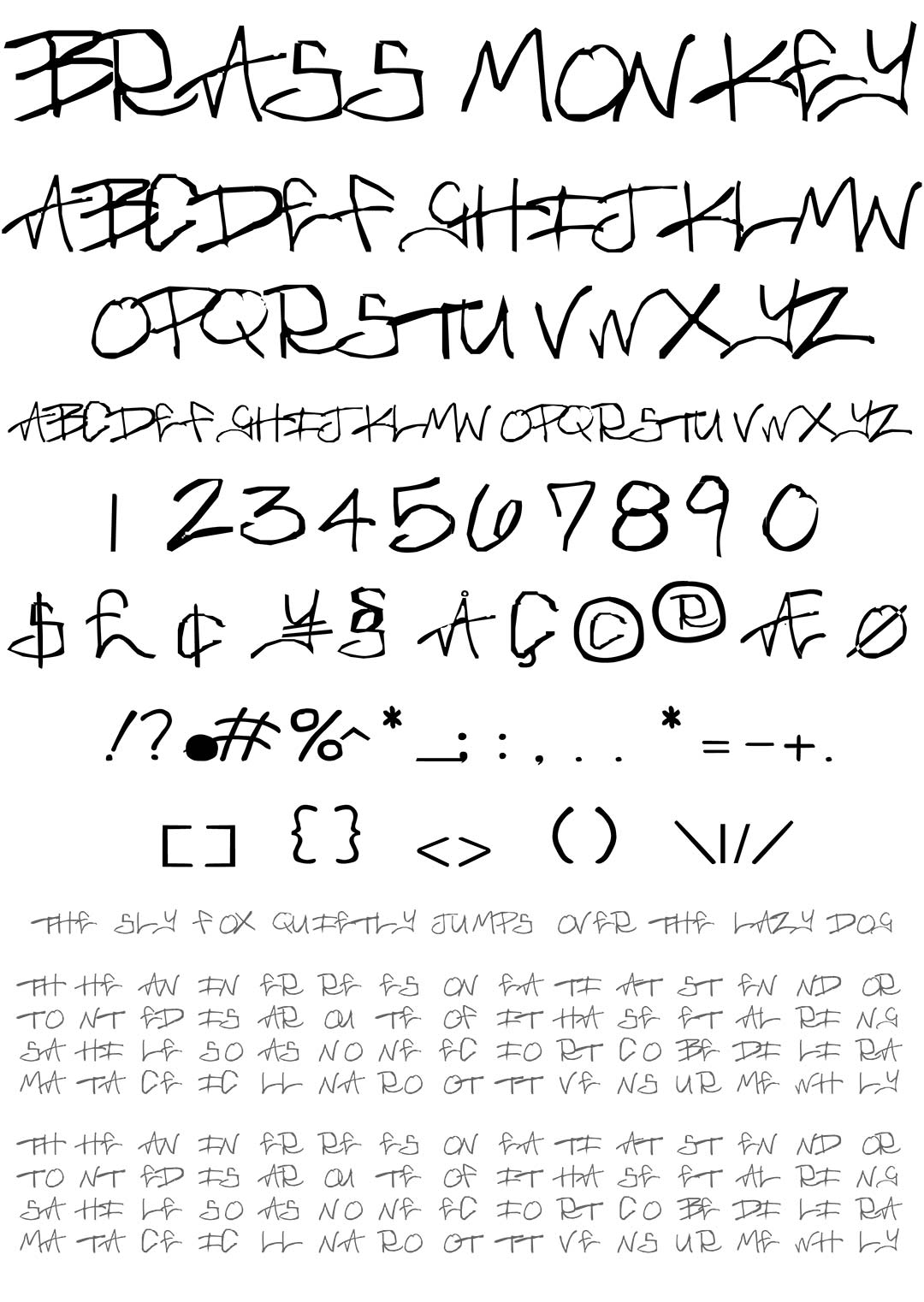
Brass Monkey
Brass Monkey Graffiti Alphabet
Brass Monkey Graffiti Font Family
Named after the classic Beastie Boys song Brass Monkey is a sloppy, tag-like letter style handwritten in very thin, rough strokes. The style has a teenage or childish feel like graffiti scribed into a school desk.